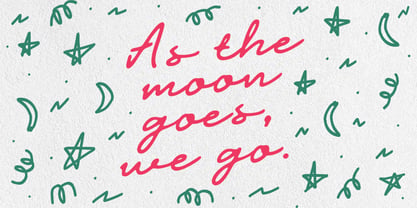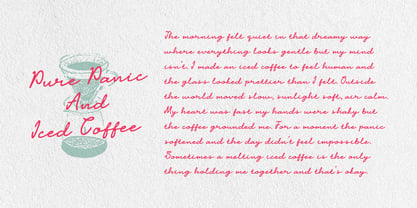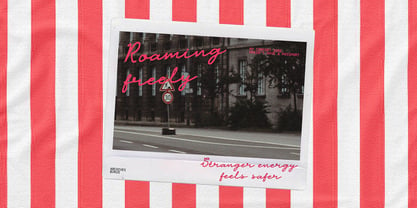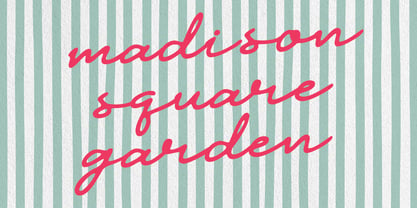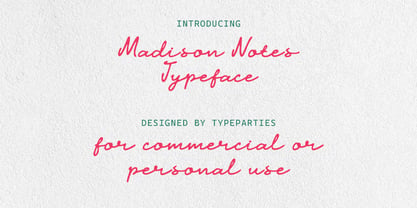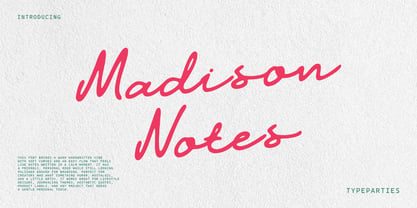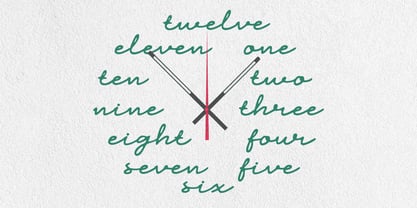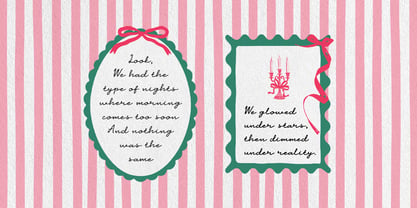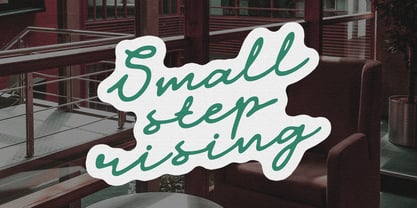
ATP Madison Notes
von Typeparties
Die Schriftfamilie ATP Madison Notes wurde von Thufail Al ghifary entworfen und von Typeparties veröffentlicht. ATP Madison Notes enthält 1 Stile. Mehr über diese Familie
This font exudes a warm, handwritten vibe characterized by soft curves and a smooth flow, reminiscent of notes penned during serene moments. It strikes a balance between a friendly, personal mood and a polished appearance, making it ideal for branding purposes. Perfect for creators seeking a human, nostalgic, and slightly artsy touch, this font excels in lifestyle designs, journaling themes, aesthetic quotes, product labels, and any project requiring a gentle personal touch. With its versatile weights and OpenType features, it enhances both digital and print applications, ensuring your designs stand out with charm and elegance.
Designer: Thufail Al ghifary
Foundry: Typeparties